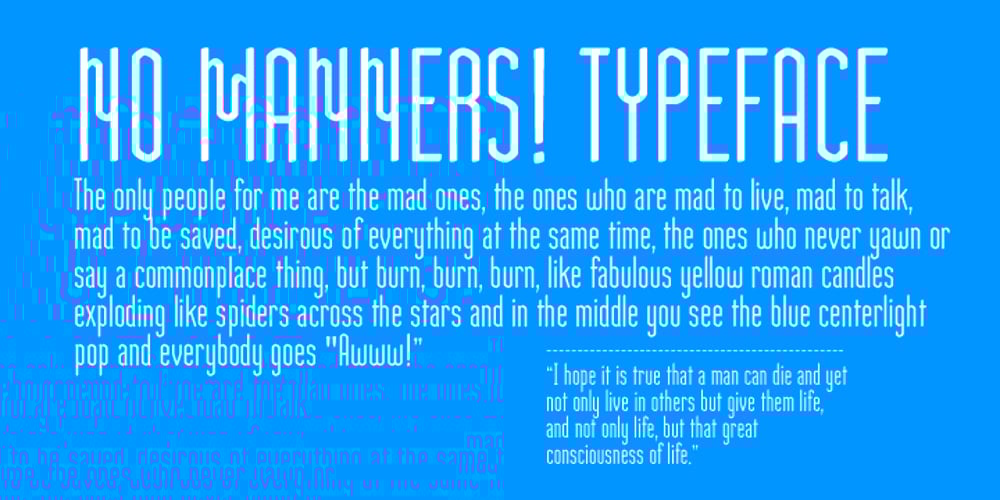
No Manners Font Family was designed by Bráulio Amado and published by Bráulio Amado. No Manners contains 1 styles and family package options. Out of step with the world. What was the inspiration for designing the font? Brasilian street art Pixacao. What are its main characteristics and features? strange M and N. Usage recommendations: headlines, caps, hate letters